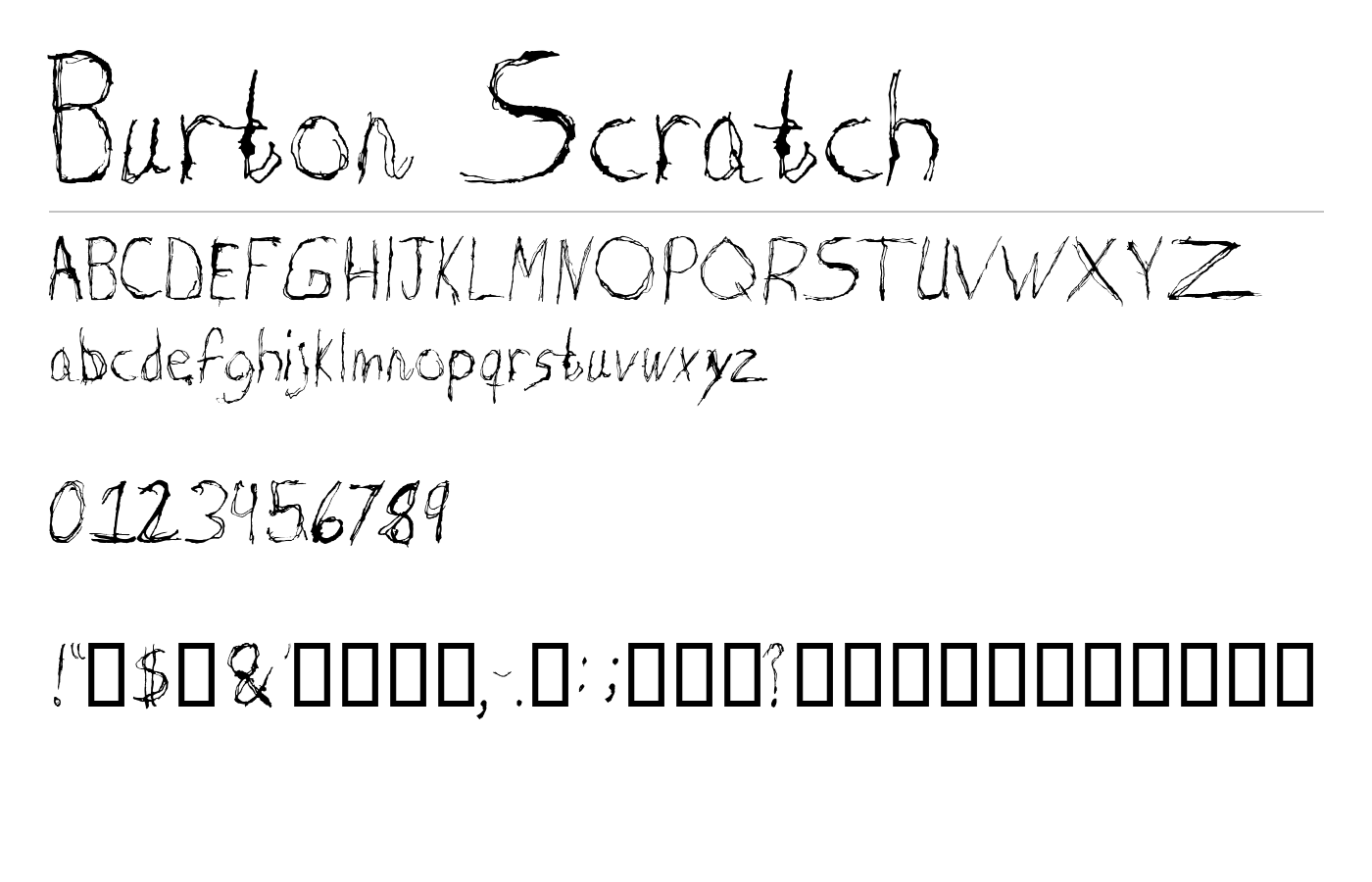
Burton Scratch is a quirky, hand-drawn sans serif font featuring irregular, sketchy strokes that give it a rough, textured appearance. Its narrow width and tall x-height create a slightly condensed look, making it ideal for playful, casual designs that need a personal, artistic touch. This font works best in creative projects like posters, invitations, and branding where a handmade, unique feel is desired.
Burton Scratch Font
About Burton Scratch Font
| Font family | Burton Scratch Font |
| Designer | Fidel Mendoza Jr. |